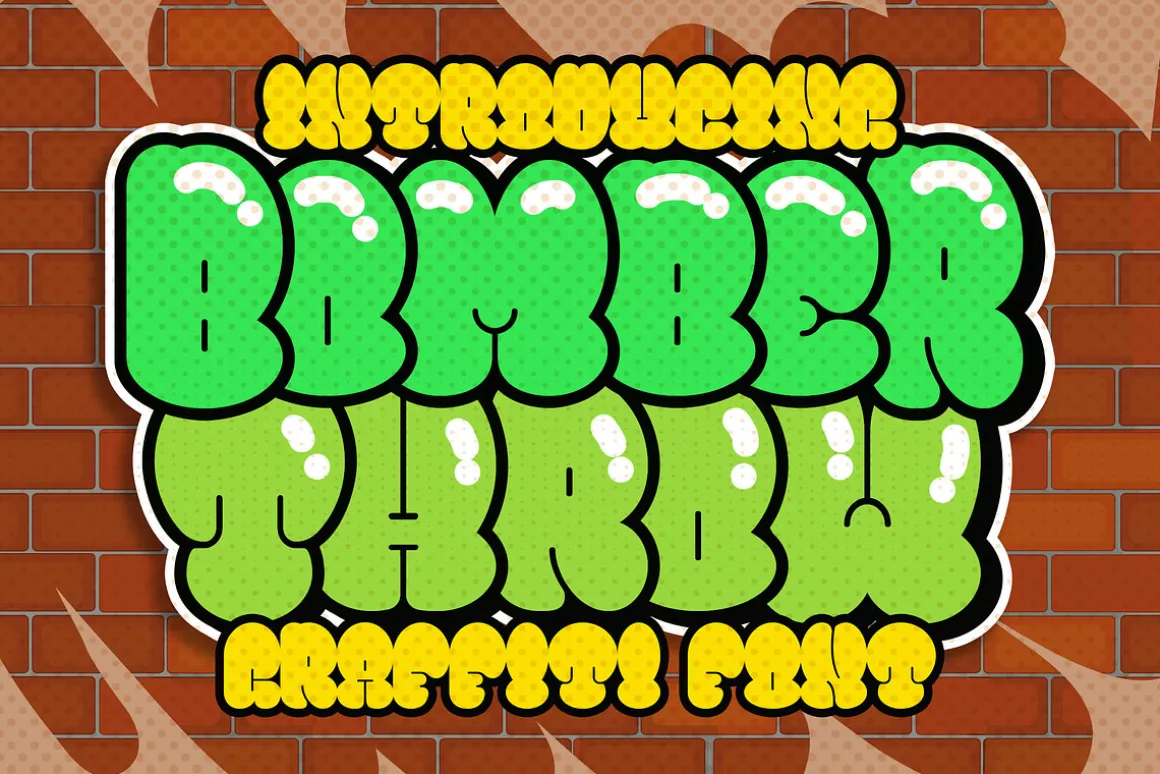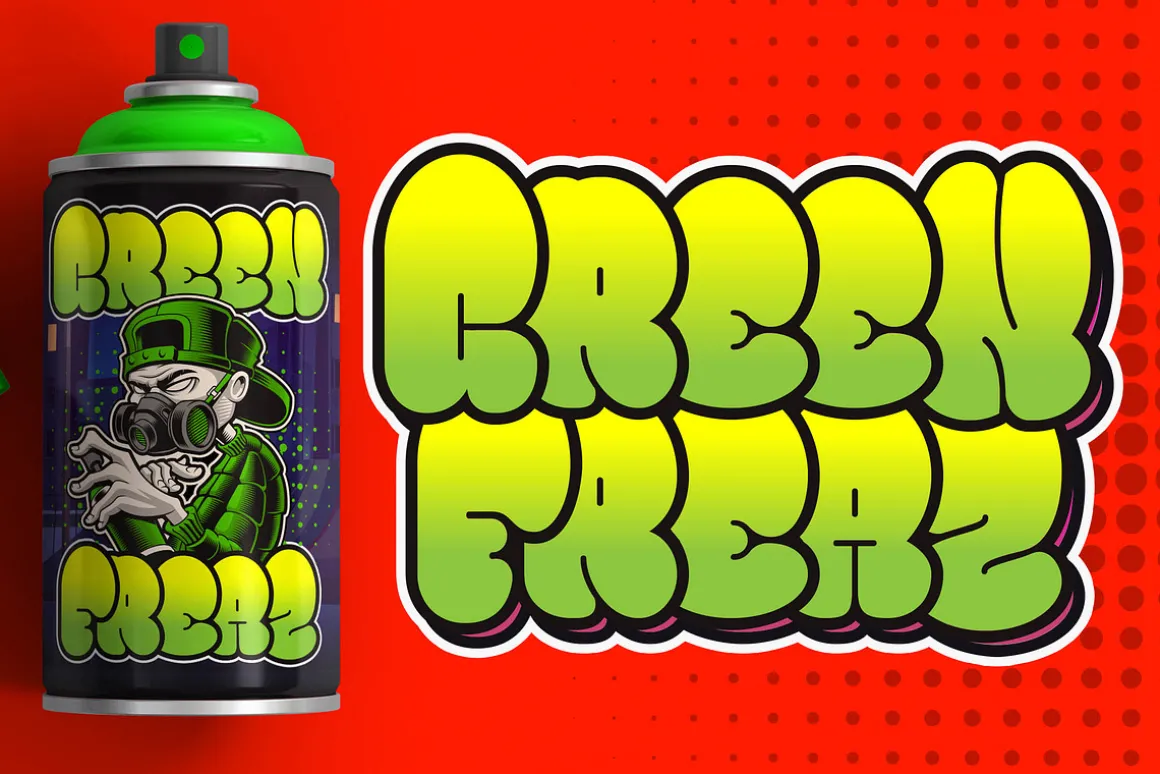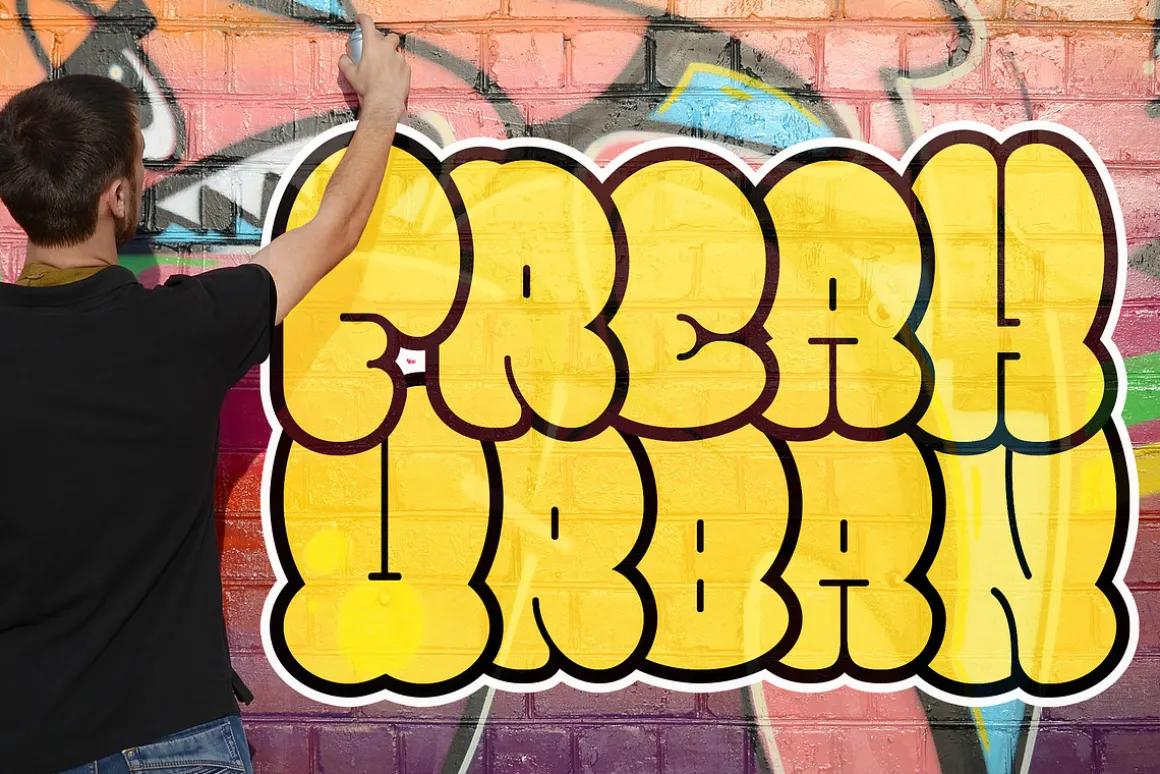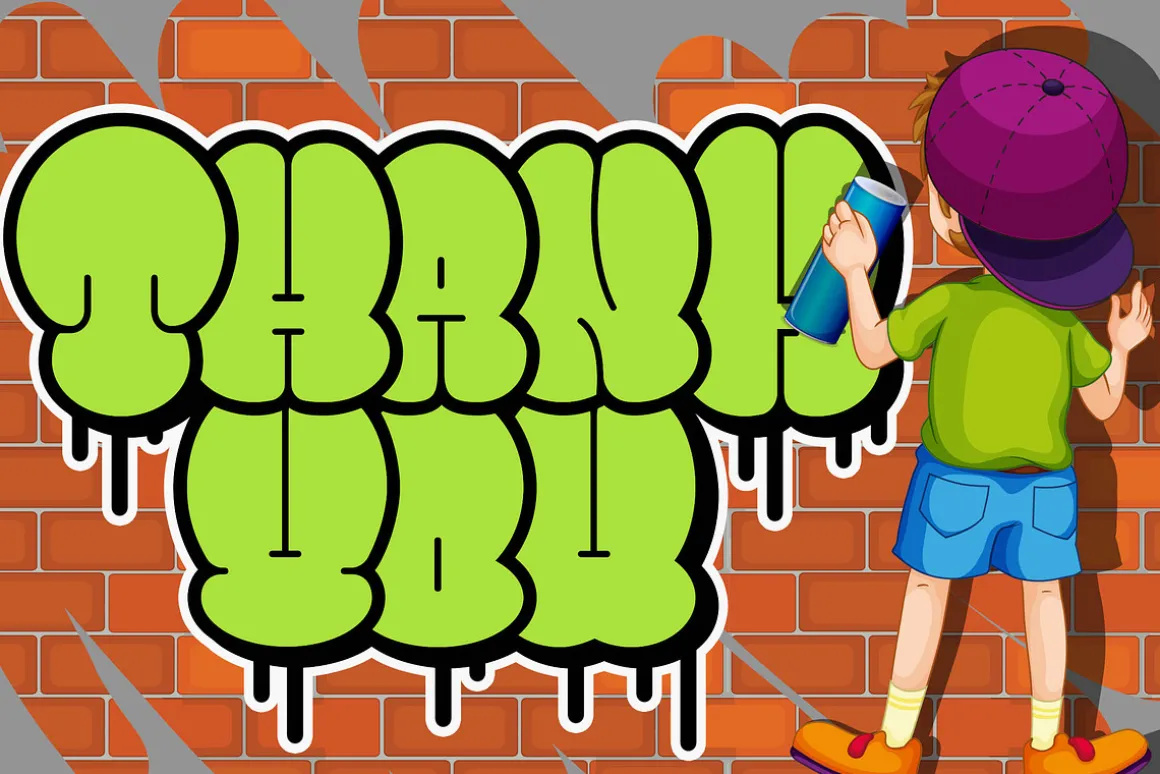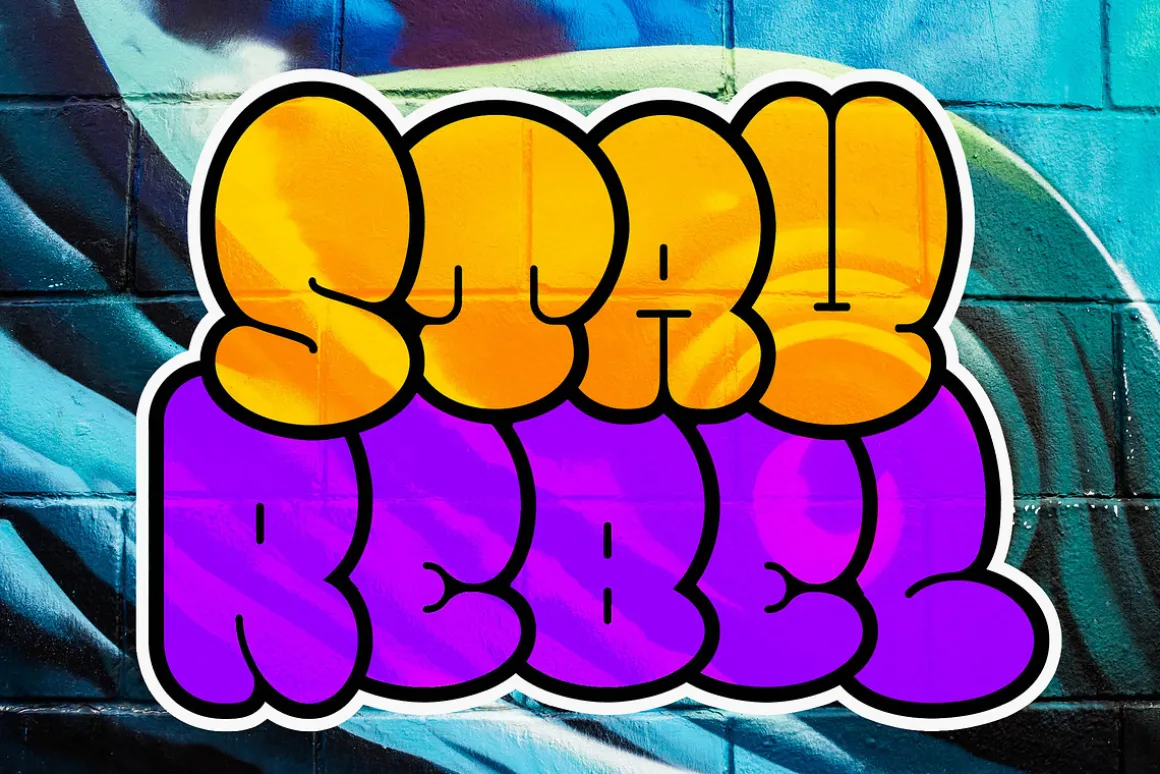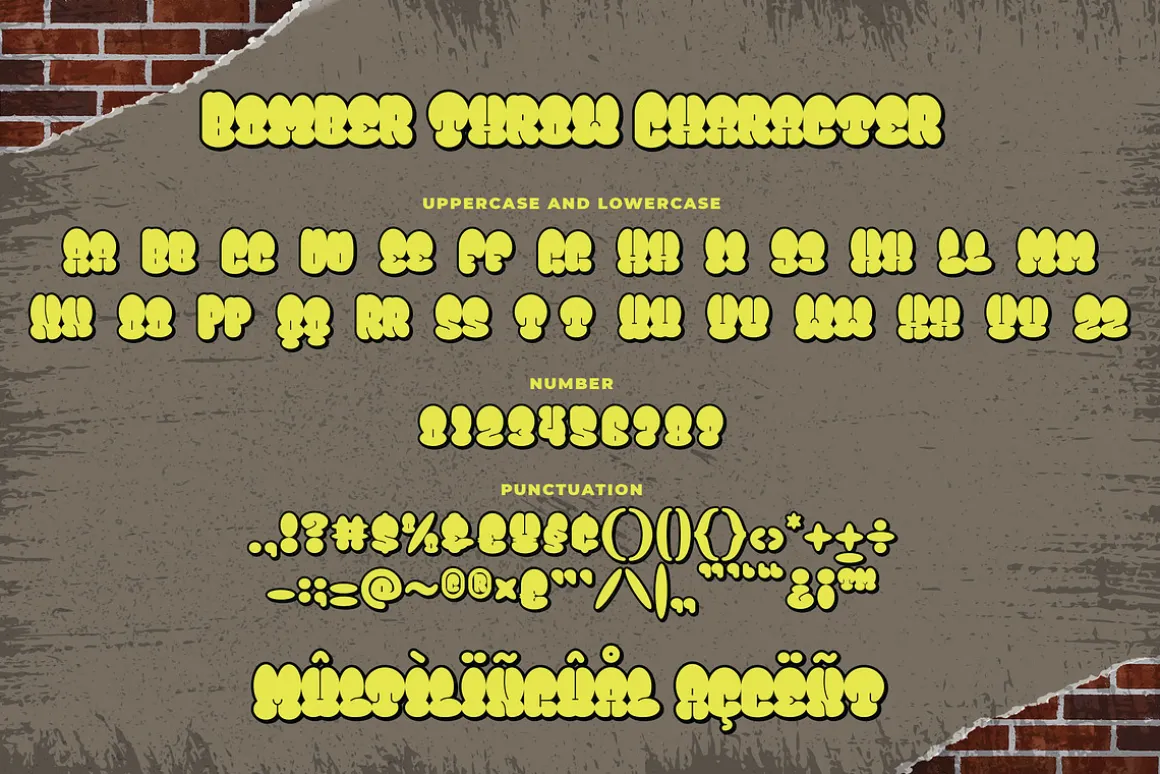
Introducing of our new product the name is Bomber Throw Graffiti Font, Bomber Throw inspired by graffiti style with a fun theme very good for graffity poster, Hip Hop music, kids poster, flyer, childrenbook, cartoon, comic etc
- Uppercase
- Lowercase
- Number
- Punctuation
- Multilingual